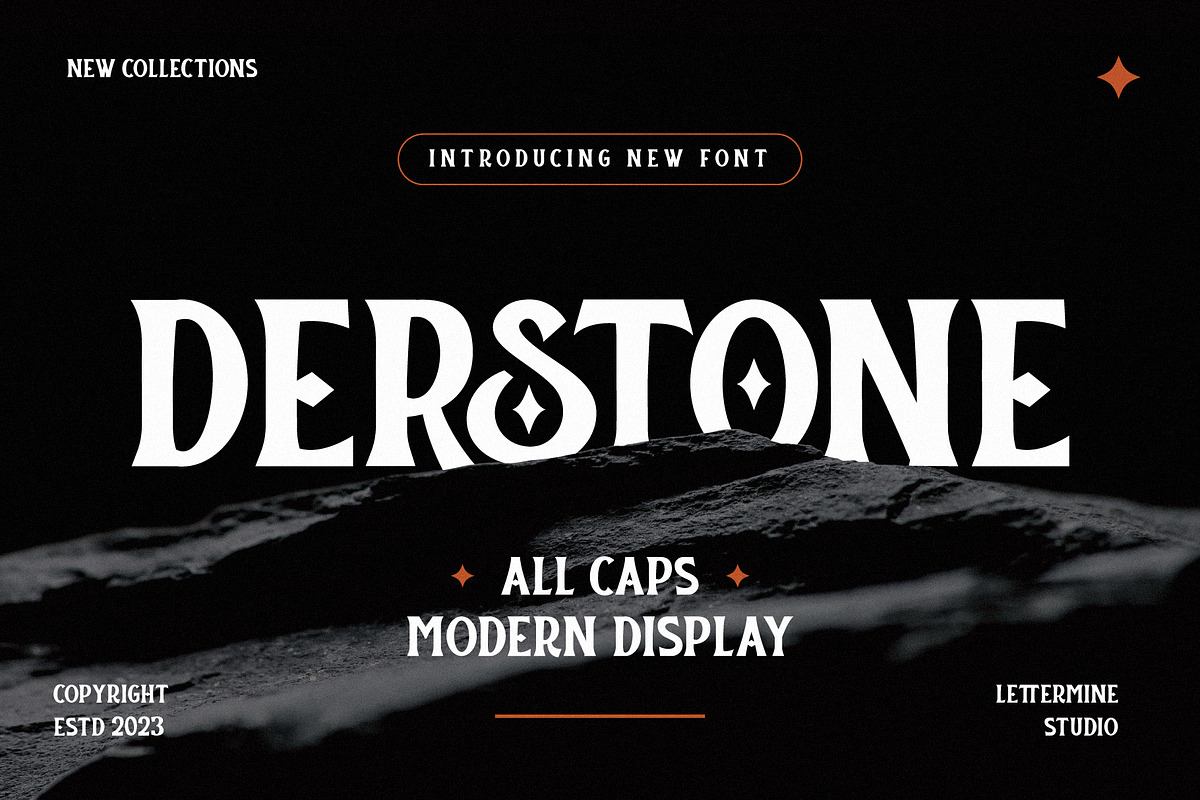
Derstone - All Caps Display Serif Free Download
Derstone Font Free Download is a powerful all-caps display serif typeface crafted to make a bold statement. With its sharp serifs, strong lines, and timeless elegance, Derstone is ideal for logos, magazine covers, headlines, posters, and luxury branding. It delivers both classic sophistication and modern edge in one striking font.
Designed with precision, each letterform in Derstone commands attention while maintaining balance and readability. Whether you're designing for fashion, editorial, or upscale packaging, this font adds authority and style to your typography. Derstone Font Free Download allows you to experiment with its dramatic presence for personal use before purchasing a license for commercial projects.
Make a lasting impression with Derstone — a display serif font that speaks with confidence.